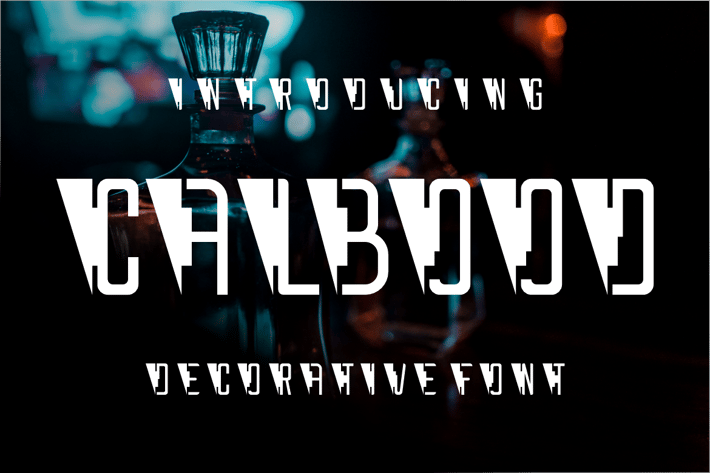
CALBOOD Font
Introducing our new product CALBOOD Font - Modern Font
CALBOOD Font - Modern Font is a bold and authentic display font. The font is suitable for any branding project like logo, t-shirt printing, esport, and many more. outstanding in a wide range of contexts.